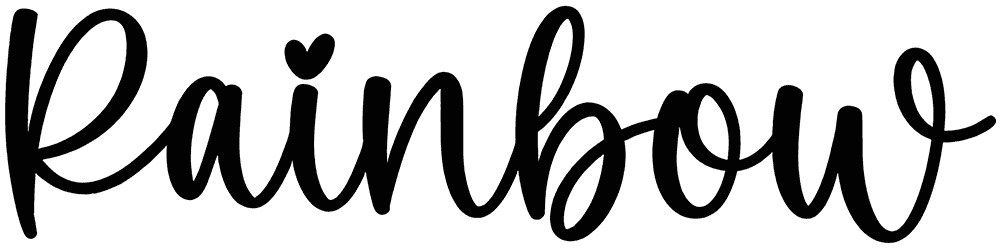
Stay Positive Font
Sometimes, adding a personalized touch to artwork, including brochures, menus, logos, social media posts, or stickers, would cement your credentials as a professional graphic designer, and in this way, a script font such as Stay Positive would be remarkably influential. If creating a sense of comfort, friendliness, dynamism, and vivacity really matters to you, this handwritten font would be ideal.
Designed by: Graphix Line Studio